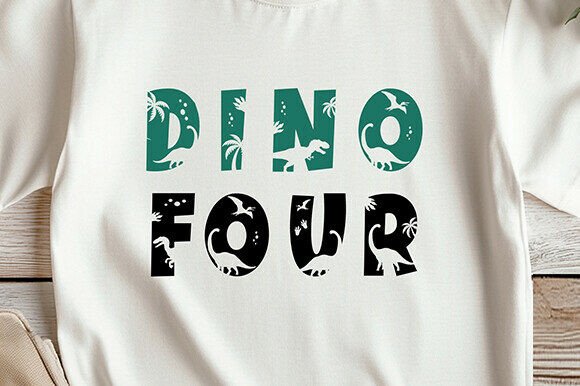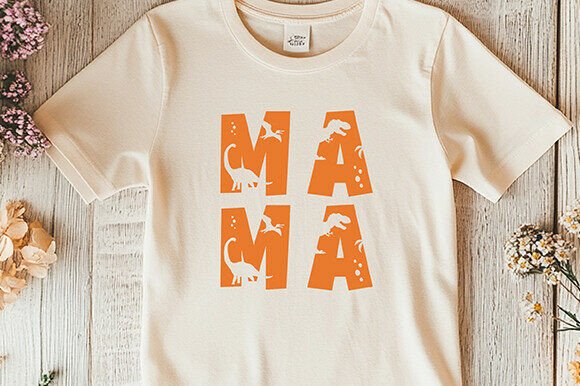
Bring Prehistoric Fun to Your Projects with Dino Font 🦕🦖
Are you looking for a unique and playful way to add some excitement to your designs? Look no further than the Dino Font, a dinosaur-themed decorative alphabet font that’s perfect for kids’ designs, posters, classroom materials, birthday invitations, T-shirts, and more! 🎉
A Playful and Bold Typeface for Creative Projects
The Dino Font is a one-of-a-kind typeface that’s sure to bring a smile to anyone’s face. Each letter is carefully designed with dinosaur-inspired details, making it a fun and creative way to add some personality to your work. Whether you’re a designer, teacher, or crafter, this font is perfect for anyone who loves combining typography with imaginative elements. 🤔
Perfect for a Range of Creative Projects
The Dino Font is incredibly versatile, and can be used in a wide range of creative projects, including:
- Kids’ designs: Create fun and playful designs for kids, such as posters, birthday invitations, and T-shirts.
- Classroom materials: Use the Dino Font to create engaging and interactive classroom materials, such as alphabet charts and posters.
- DIY crafts: Add a personal touch to your DIY crafts, such as scrapbook pages, cards, and gift tags.
- Playful typography: Use the Dino Font to create fun and playful typography, perfect for adding a touch of personality to your designs.
Bring Bold, Fun, and Youthful Energy to Your Projects
The Dino Font is the perfect way to add a bold, fun, and youthful energy to your projects. With its playful and imaginative design, it’s sure to capture the attention of your audience and leave a lasting impression. 🌟
Why Choose the Dino Font?
So why choose the Dino Font for your next project? Here are just a few reasons:
- Unique and playful design: The Dino Font is a one-of-a-kind typeface that’s sure to stand out from the crowd.
- Perfect for kids’ designs: The Dino Font is perfect for kids’ designs, making it a great choice for designers, teachers, and parents.
Get Ready to Roar with Creativity! 🦖